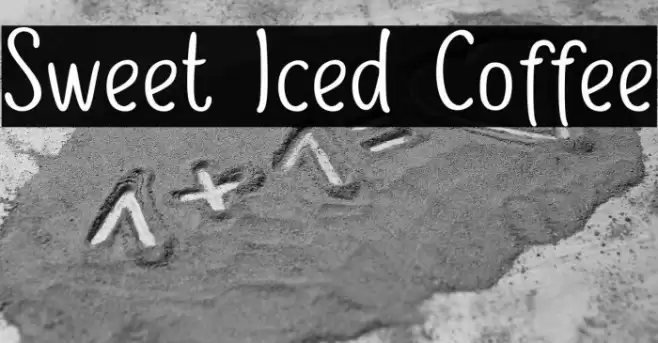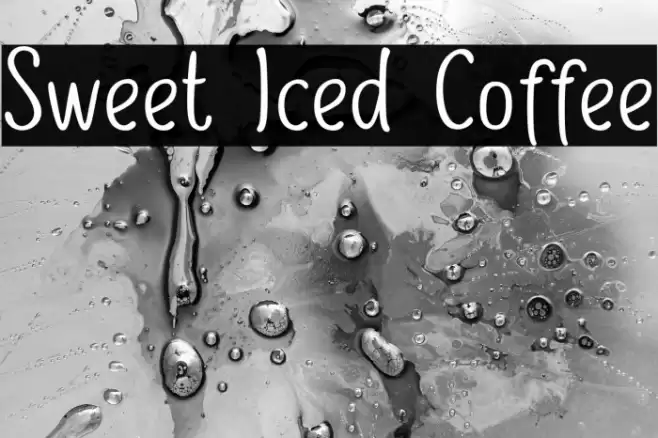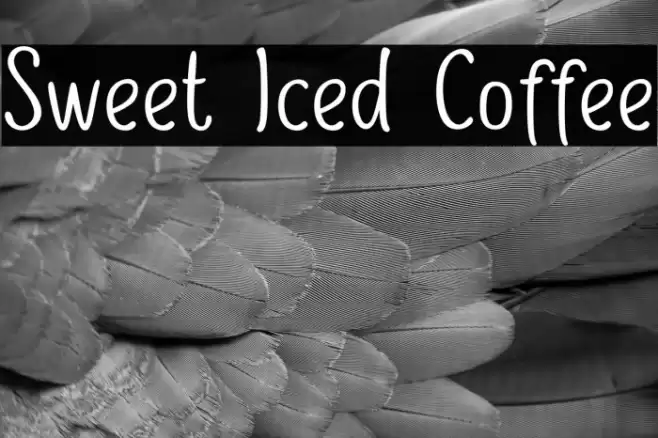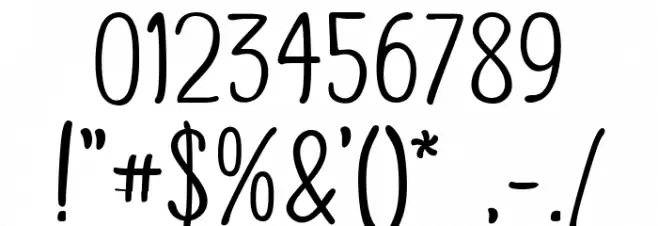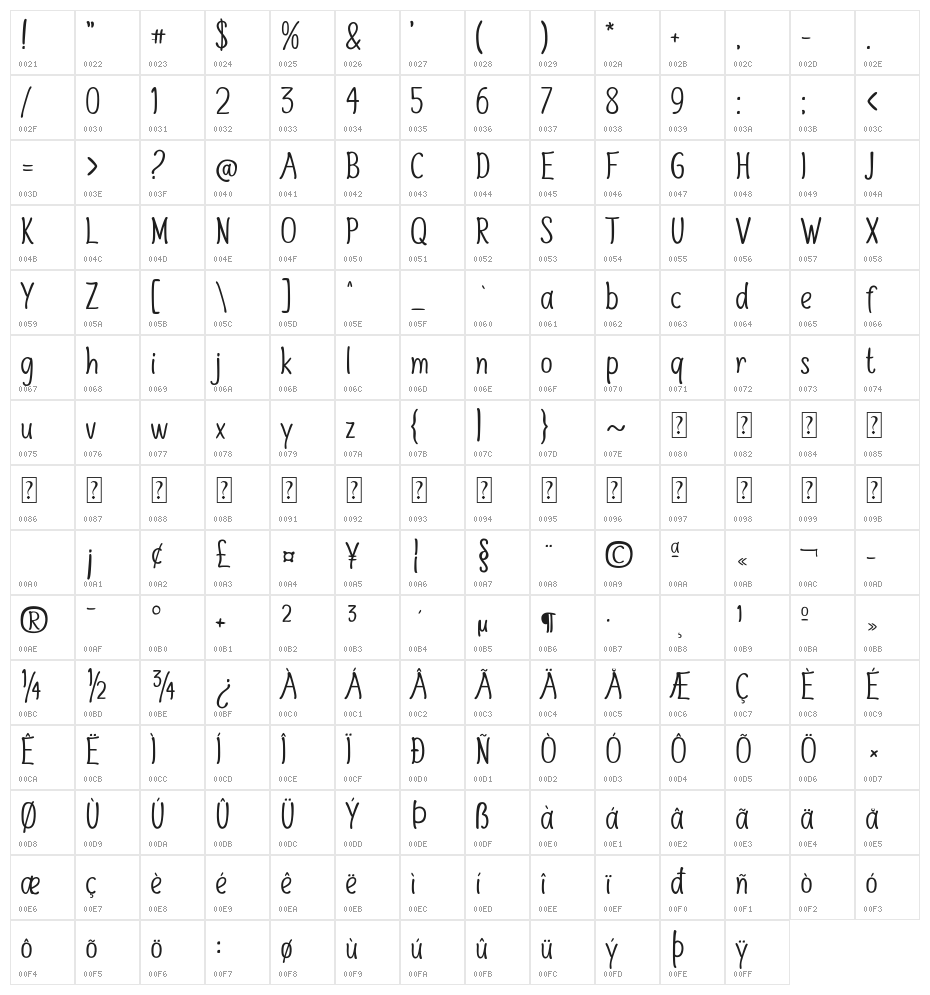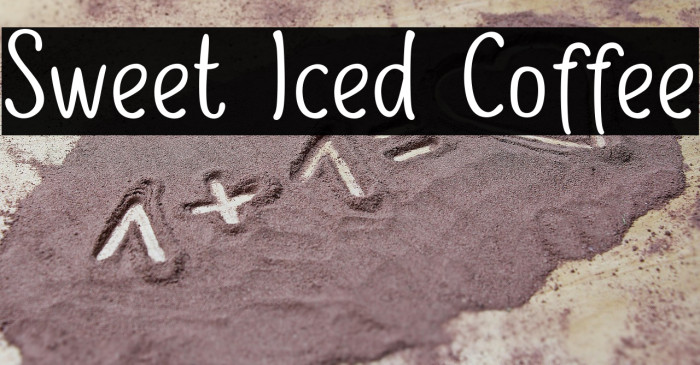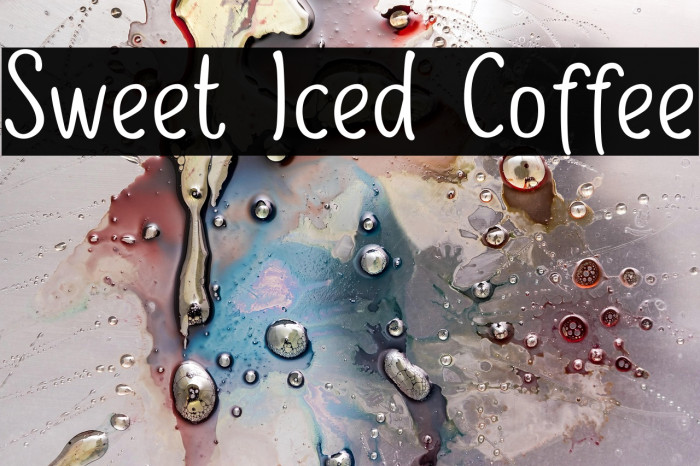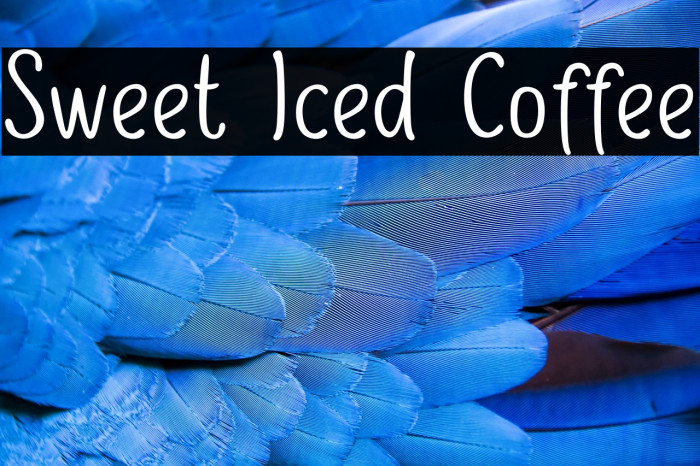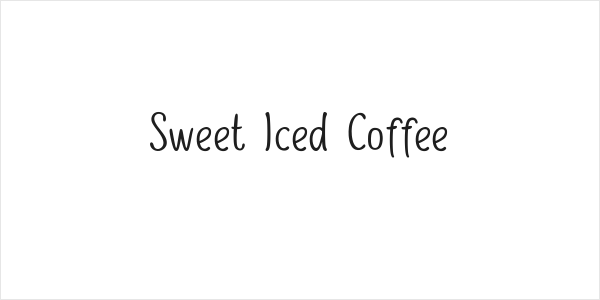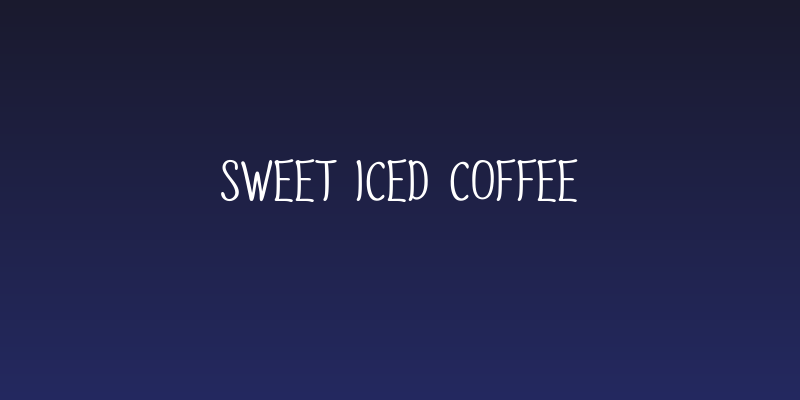
Sweet Iced Coffee Font
Sweet Iced Coffee Description
This font features a playful and casual handwritten style, characterized by its smooth curves and slightly irregular letterforms that give it a personal touch. The uppercase and lowercase letters are well-balanced, maintaining a consistent flow throughout the text. Numbers and special characters are crafted with the same whimsical feel, making them blend seamlessly with the alphabet. The font's overall appearance is friendly and approachable, ideal for projects that require a touch of personality and warmth.
A playful handwritten font with smooth curves and a casual style from Regular fonts.
- Proposed Projects: Perfect for greeting cards, invitations, personal branding, and social media graphics.
- Overall Style: Casual
- Use Case: Headlines, Logos, Informal text